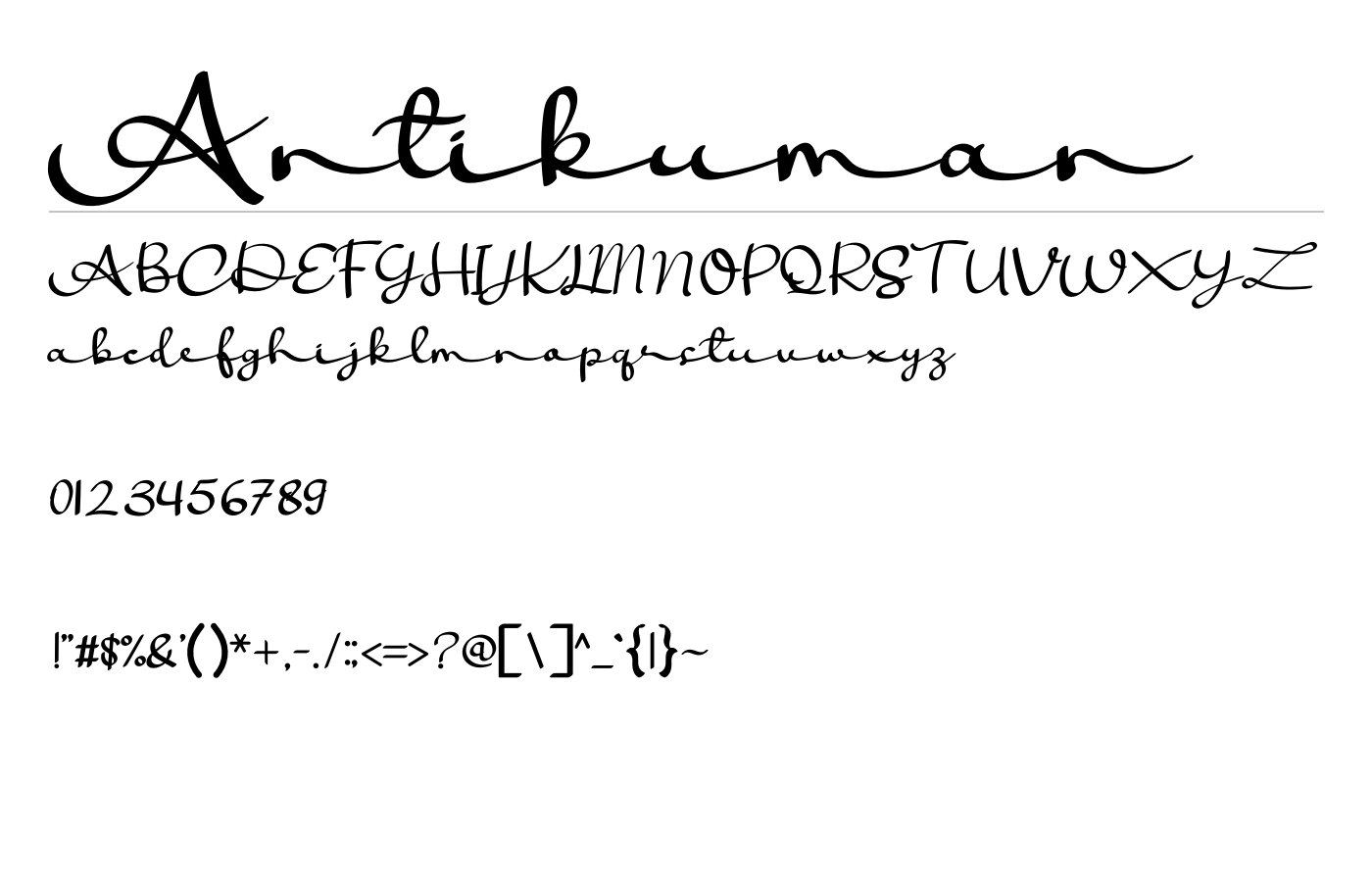
Antikuman is a playful, handwritten script font with smooth, flowing strokes and a natural, casual elegance. Its moderately tall x-height and varying stroke thickness create a lively, personal feel, making it ideal for creative projects like invitations, greeting cards, and informal branding that seek warmth and approachability. This font works well for headlines and decorative text where a friendly, artistic touch is desired.
Antikuman Font
About Antikuman Font
| Font family | Antikuman Font |
| Designer | Andriyanto Adi utomo |